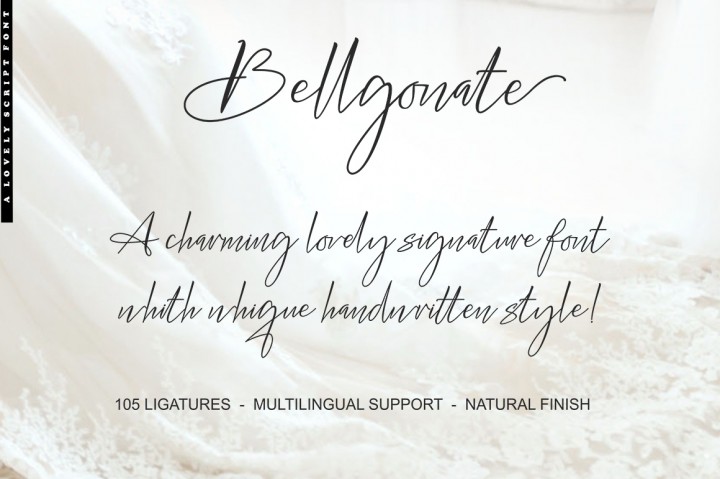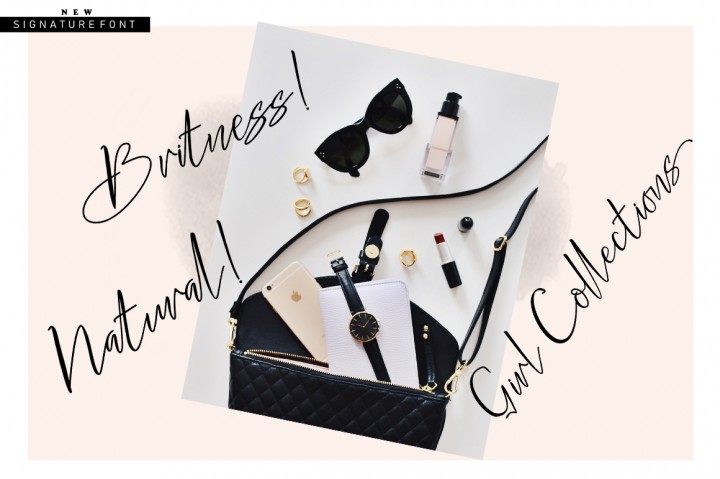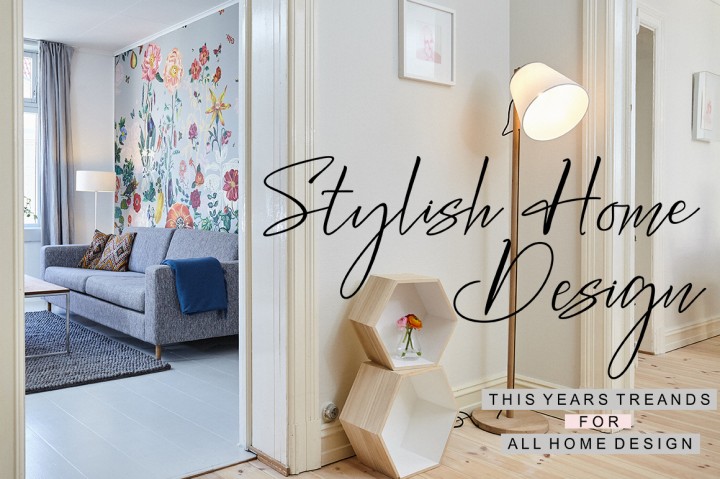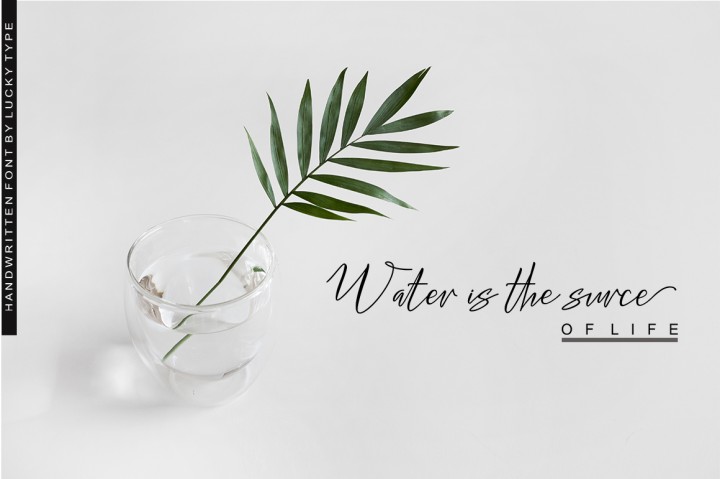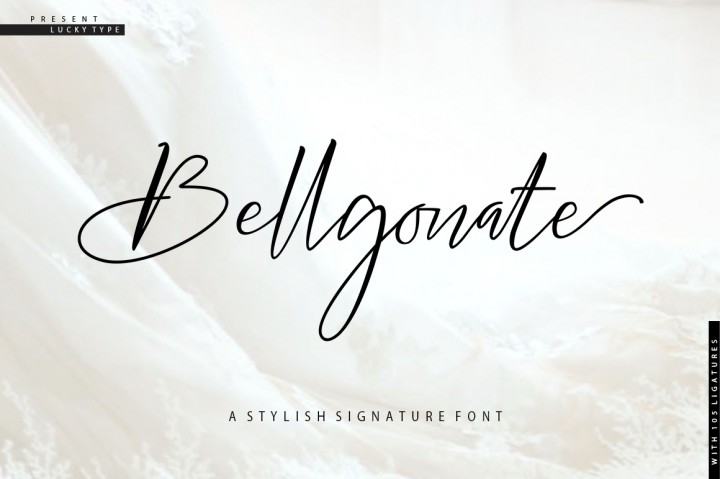
Bellgonate Signature Font
Hello world..!! Bellgonate Font! A luxury and fashionable handwriting font. It contains full characters (standard case letters and replacement letters) to make the script look like the best handwriting possible.  This is a classic thin font with an italic style. Here you will get a beautiful classic font. This font is available in several modern swirls that can make your work look elegant, sweet and perfect.
With this style, this font will be suitable for logos, branding projects, design of household appliances, product packaging, mugs, quotes, posters, shopping bags, logos, t-shirts, book covers, business cards, invitation cards, greeting cards, and all your other beautiful projects.